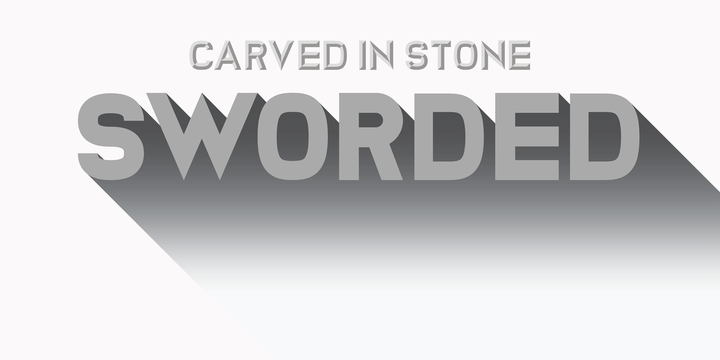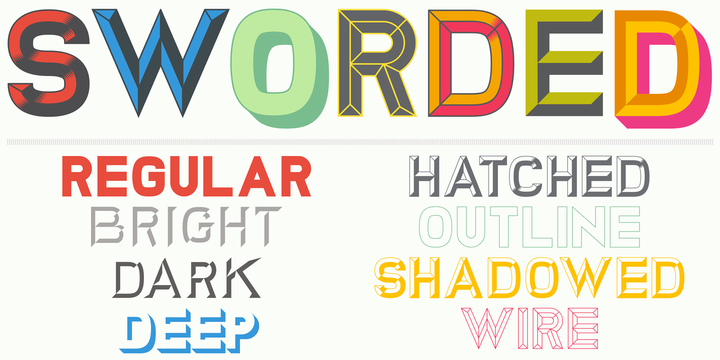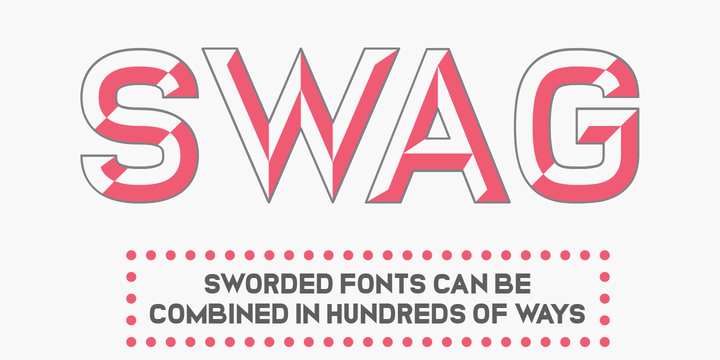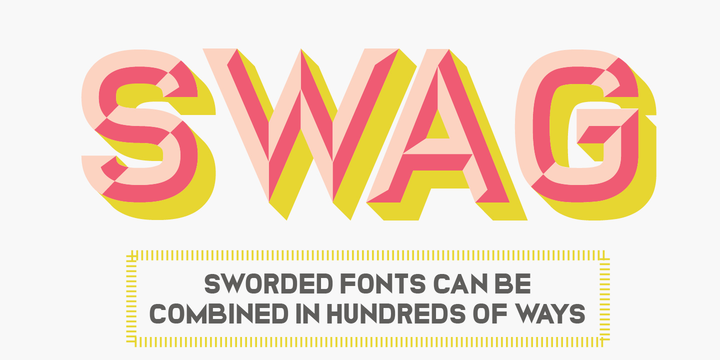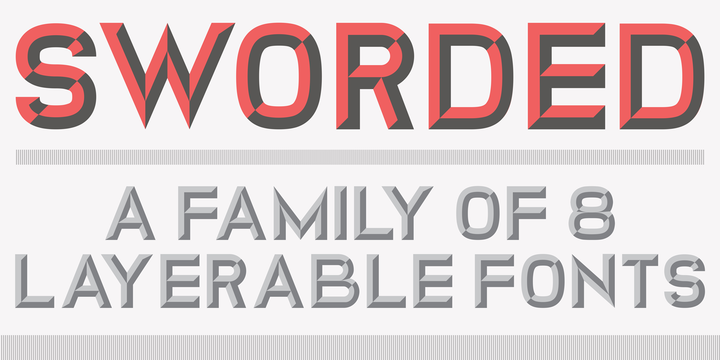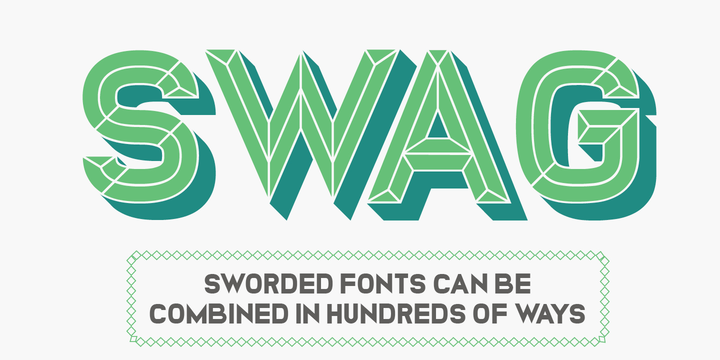
Sworded Font Family
Sworded Font Family – 8 Fonts
Sworded is a font family of 8 fonts that was inspired by such diverse things as architecture, tombstones, video games, watching old movies or reading comic books.
The art of creating beautiful letters has slowly declined with the rise of the digital age and its solid-colour, 2D fonts. And most of the time, the care given to typography in cultural products just isn’t what it used to be anymore.
This was the inspiration for Sworded, a family of 4 layerable fonts that can bring a feeling of depth to its letters, and offers endless possible combinations.
Sworded Regular is the basic shape of all the characters.
Sworded Deep gives an impression of depth to chartacters or acts on its own as an illusion.
Sworded Bright can be used as the bright side of a bevel.
Sworded Dark can be used to flesh out the dark side of a bevel.
Sworded Shadowed is a contour font with a shadow effect.
Sworded Wire is a wire font without depth indication.
Sworded Outline is an outline font.
Sworded Hatched is a variation of Sworded Shadowed with lines giving a gradient illusion.
Sworded
Sworded Deep
Sworded Bright
Sworded Dark
Sworded Shadowed
Sworded Wire
Sworded Outline
Sworded Hatched